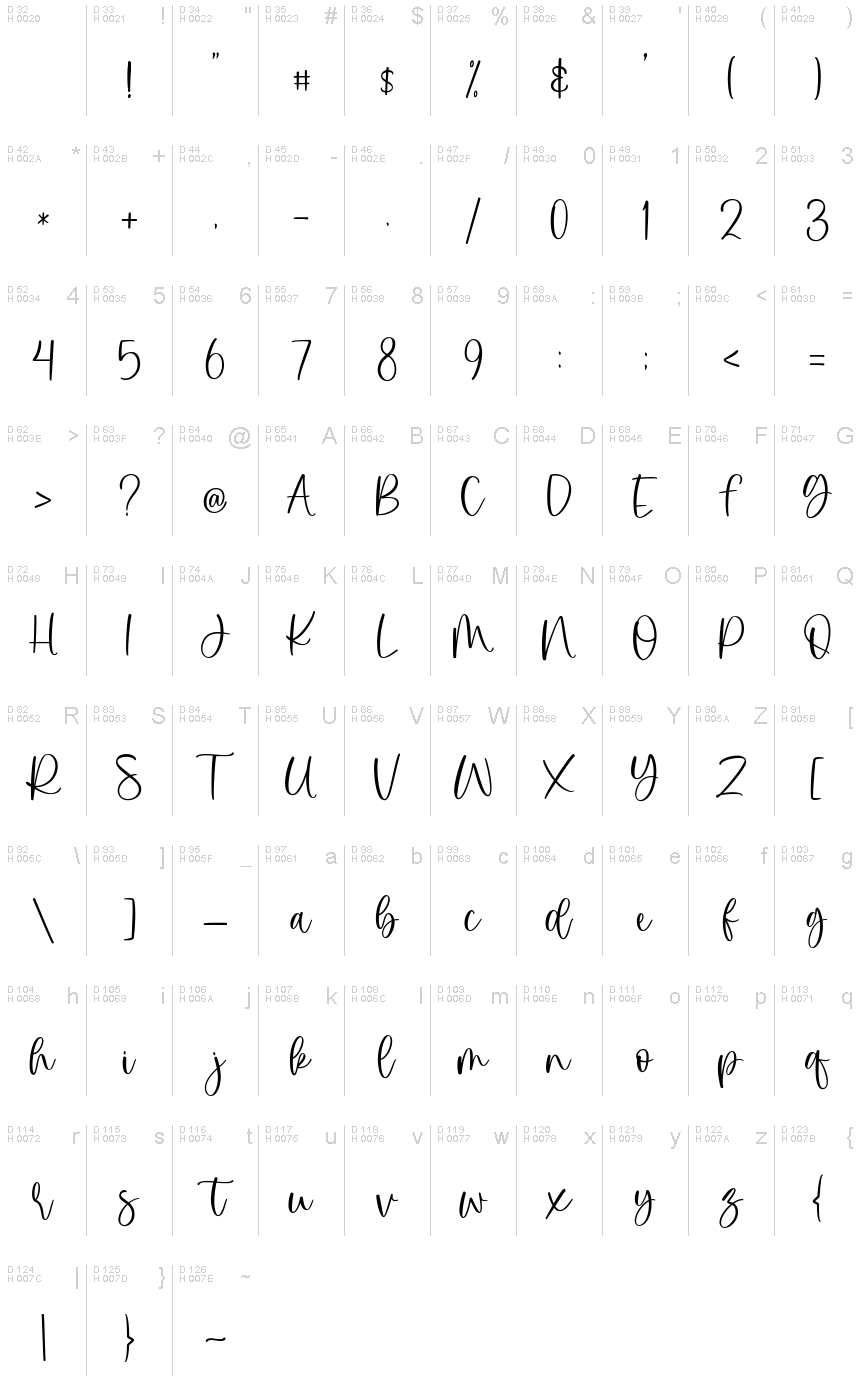
holidate
Holidate font, designed by Ramli Setiadi, captures the essence of playful elegance through its charming handwritten style. With sweeping curves and a delightful bounce, this font exudes a friendly warmth that invites connection and creativity. Its distinctive flair comes alive in both its bold strokes and lighter variations, making it versatile yet highly expressive.
Ideal for festive invitations or personal projects, Holidate adds a touch of whimsy to any design context. Whether used for greeting cards, branding materials, or social media graphics, this font sparks joy and conveys a sense of celebration. Embrace Holidate to elevate your designs with its unique character and approachable aesthetic.